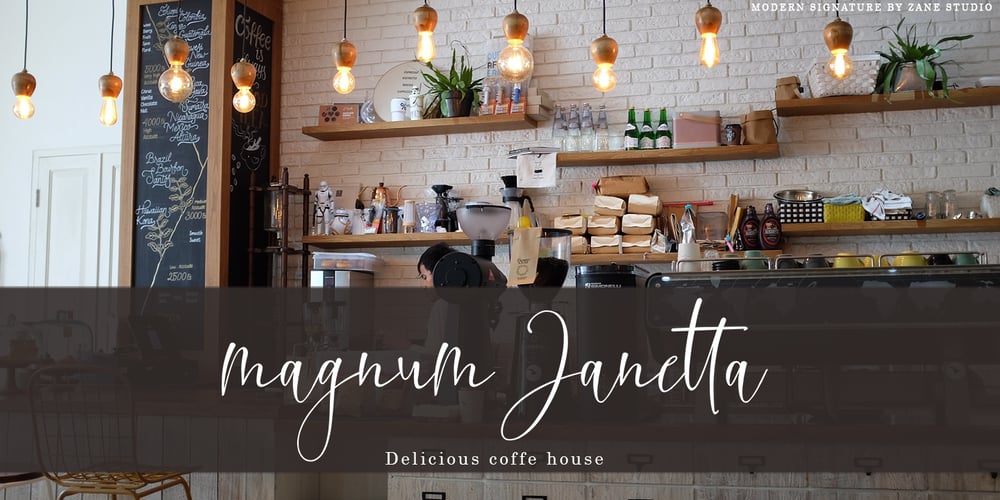
Distoria Script Font Family was designed by Mur Zani and published by Zane Studio. Distoria Script contains 1 styles and family package options. Distoria is a signature script. This is a classic thin font with an italic style. This beautiful and classic script also includes several modern rounds that can make your work look elegant, sweet and perfect. Distoria will be suitable for logos, branding projects, household designs equipment, product packaging, mugs, quotes, posters, shopping bags, logos, t-shirts, book covers, business cards, invitation cards, greetings card, and all the other beautiful projects. Distoria includes support for multiple languages. This font also includes several ligatures and alternatives Style Set Style For those of you who have good software OpenType function (Corel Draw / Photoshop / Illustrator / InDesign). If you don’t have a program that supports the OpenType feature like Adobe Illustrator and CorelDraw X, you can access all alternatives glyphs use Font Book (Mac) or Character Map (Windows): How to access all alternative characters using Adobe Illustrator: https://www.youtube.com/watch?v=XzwjMkbB-wQ How to access all alternative characters, using Windows Character Map with Photoshop: https://www.youtube.com/watch?v=Go9vacoYmBw